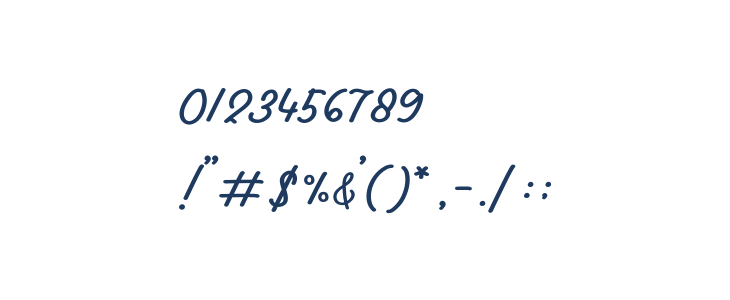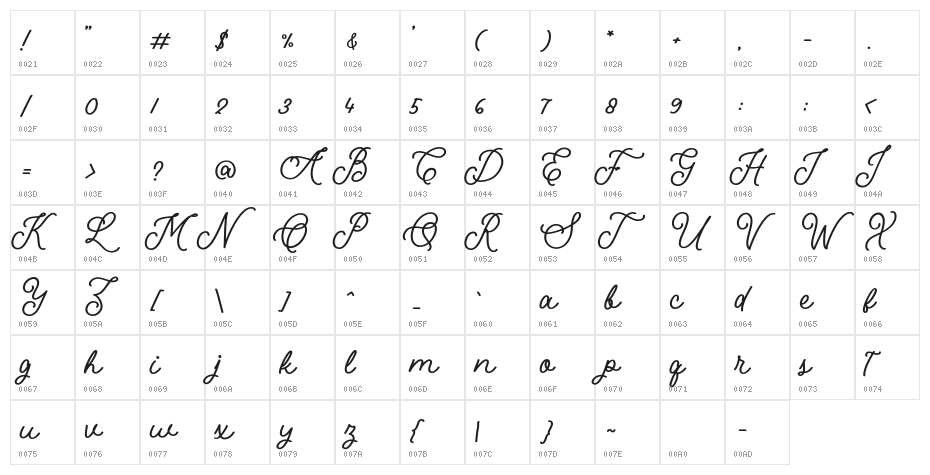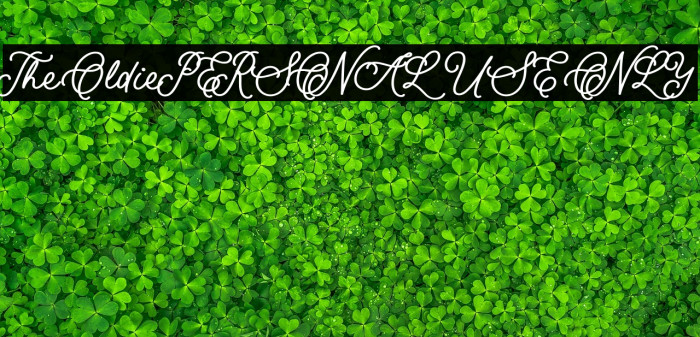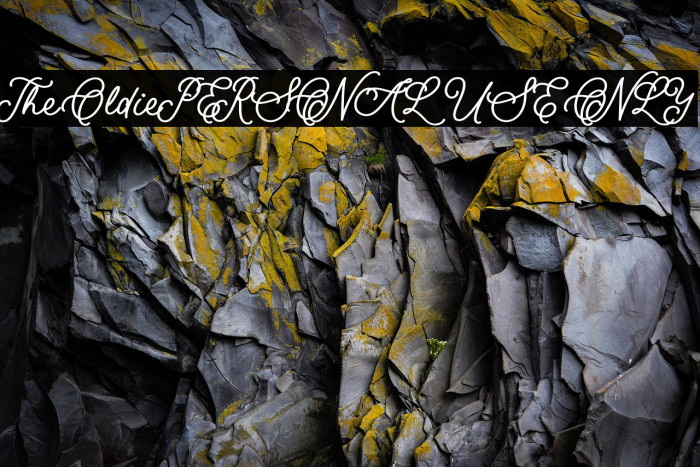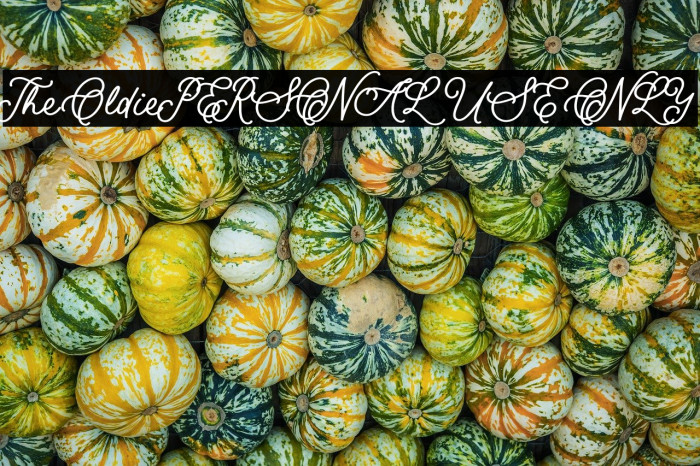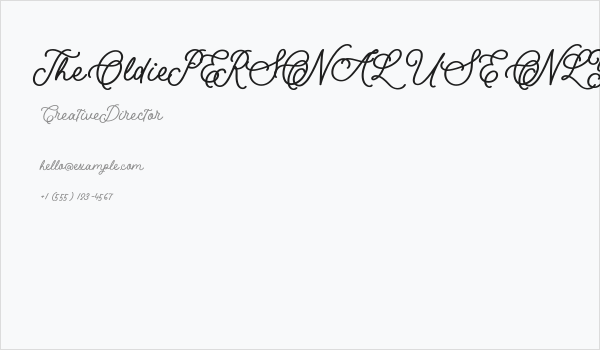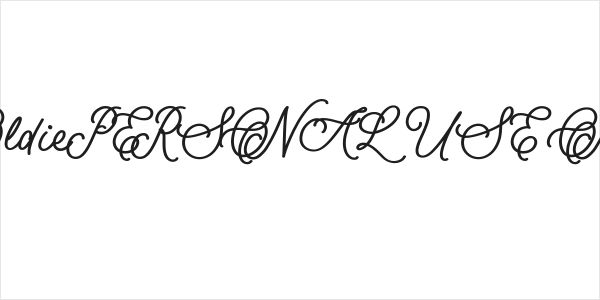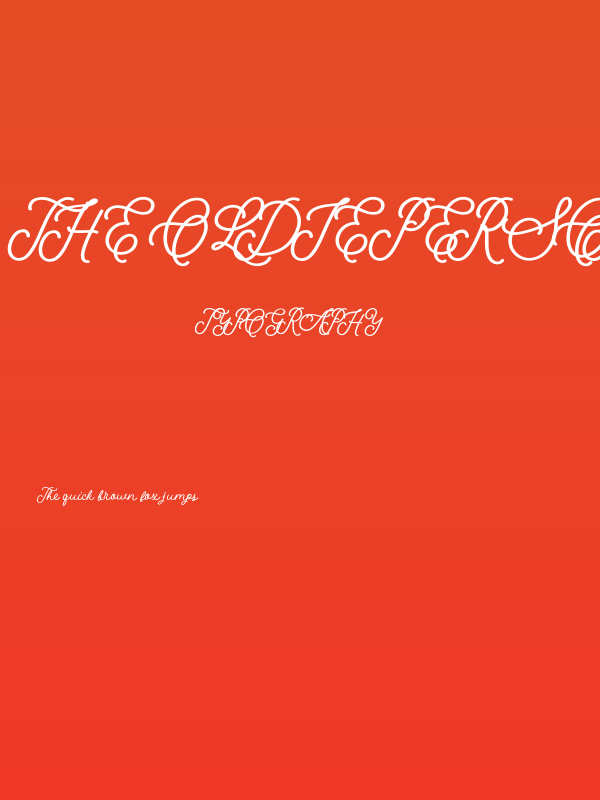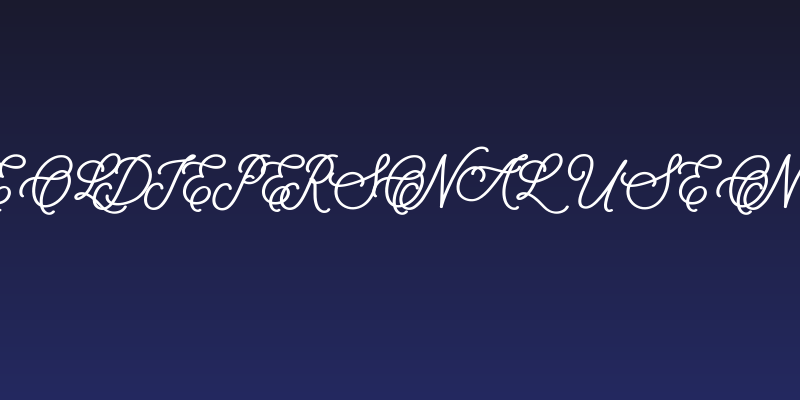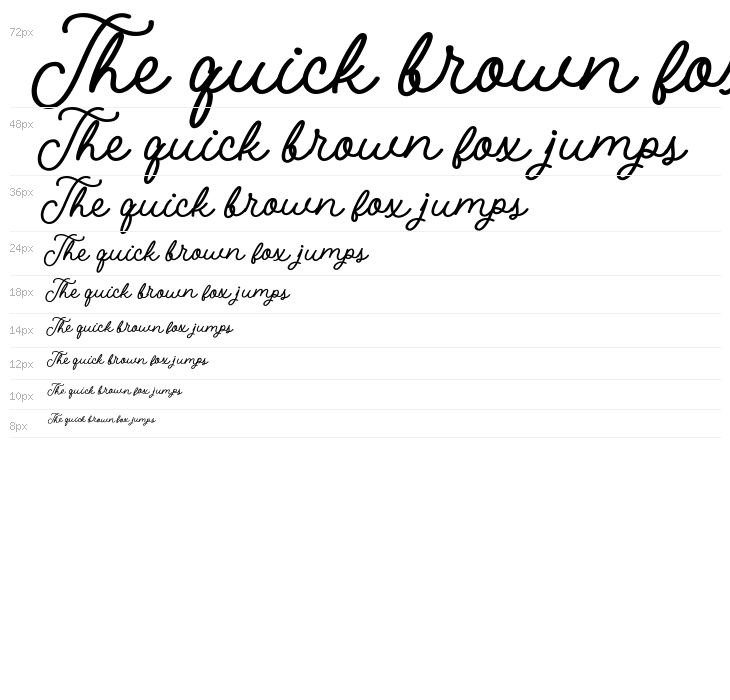
The Oldie PERSONAL USE ONLY Font
The Oldie PERSONAL USE ONLY Description
This font features an elegant and flowing script style, reminiscent of classic calligraphy. The uppercase letters are intricately designed with loops and flourishes, giving them a sophisticated and ornate appearance. The lowercase letters maintain a smooth and connected flow, enhancing readability while preserving the decorative nature. Numbers and special characters are crafted with the same attention to detail, ensuring consistency across all glyphs. This font exudes a sense of timeless elegance, making it suitable for formal and decorative uses.